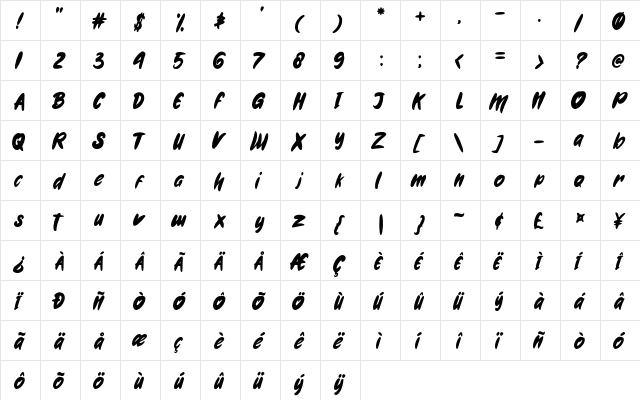
Gweneth embassy Regular
| Foundry | Stringlabs |
| Designer | Stringlabs |
Design Context for Gweneth embassy Typeface
Gweneth embassy is a composed and adaptable typeface that performs quietly and consistently across a wide range of design contexts.